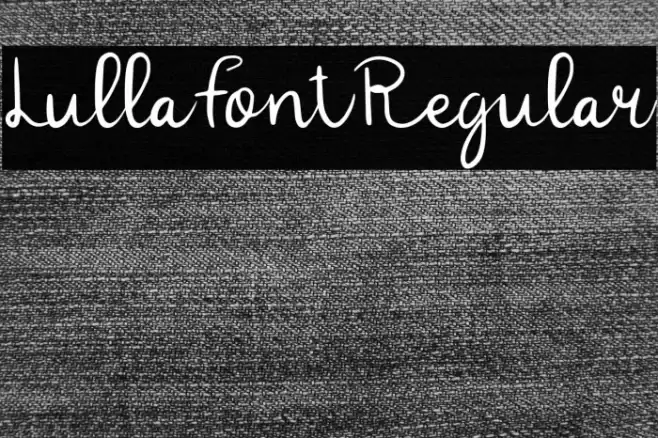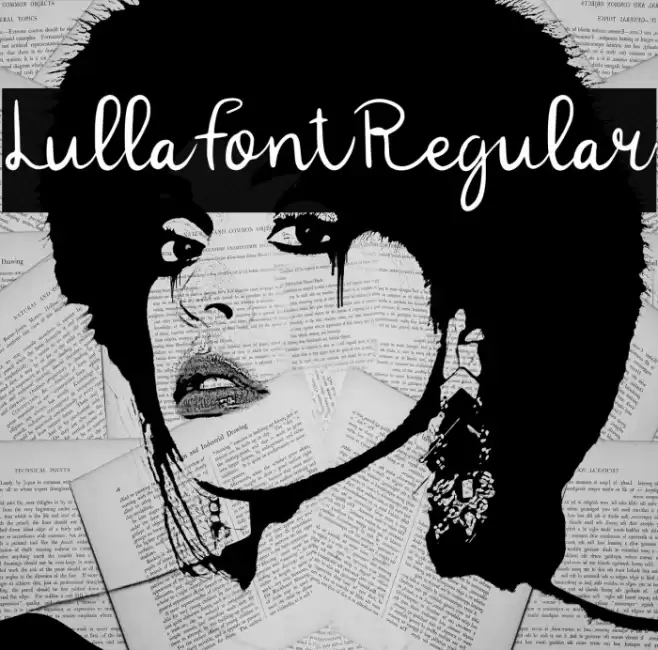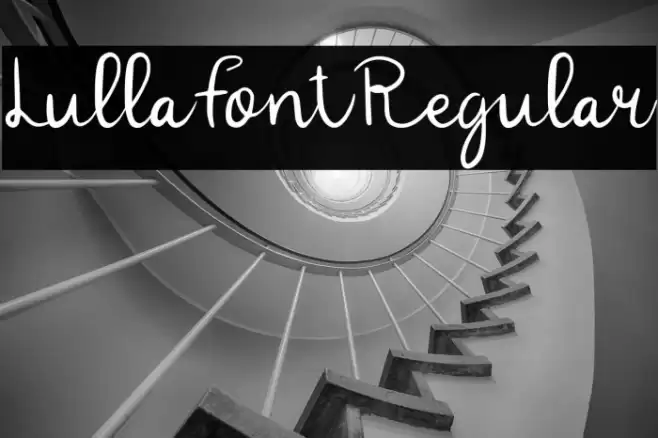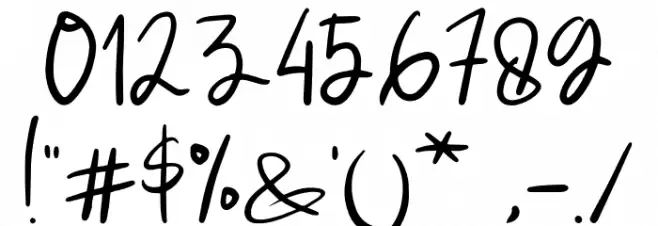
LullaFontRegular Font
LullaFontRegular Description
This font features a playful and casual handwritten style, characterized by its fluid and organic letterforms. The uppercase letters are bold and slightly irregular, adding a touch of whimsy, while the lowercase letters maintain a consistent flow with smooth curves and loops. The numerals are distinct and easy to read, complementing the overall informal aesthetic. Special characters are creatively integrated, maintaining the font's cohesive look. This font's lively and approachable style makes it suitable for projects that require a personal touch.
A playful handwritten font with fluid, organic letterforms and a casual style from Uncategorized fonts.
- Proposed Projects: Ideal for greeting cards, invitations, personal branding, and creative projects that require a friendly and informal touch.
- Overall Style: Casual, Playful
- Use Case: Headlines, Logos, Invitations